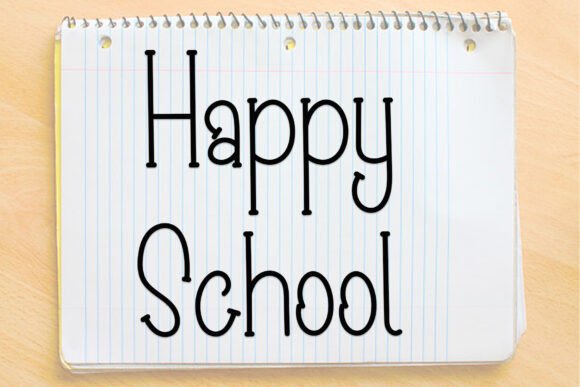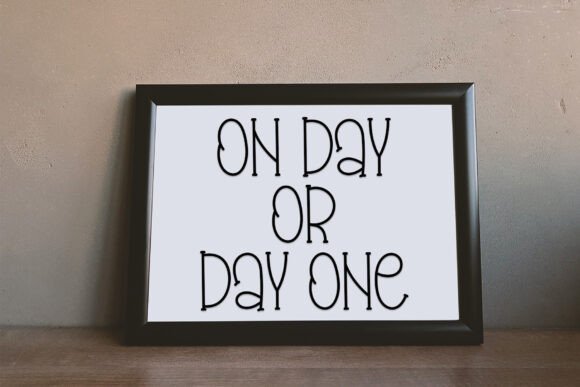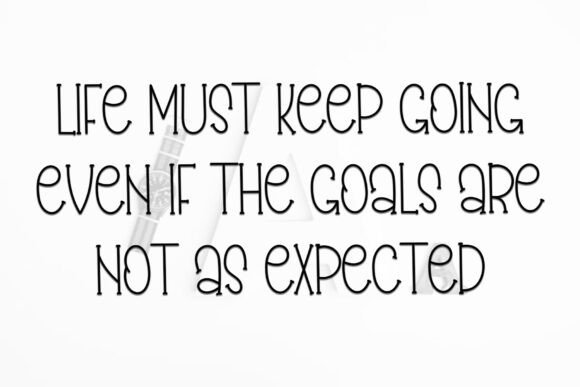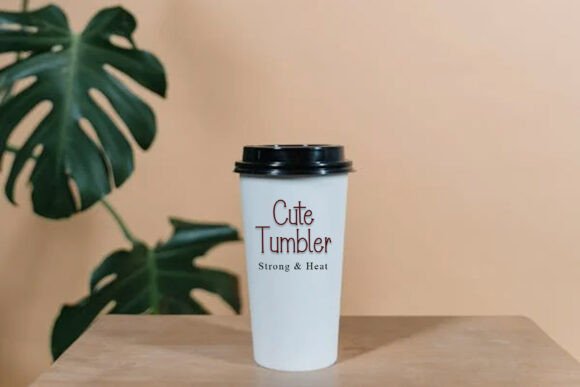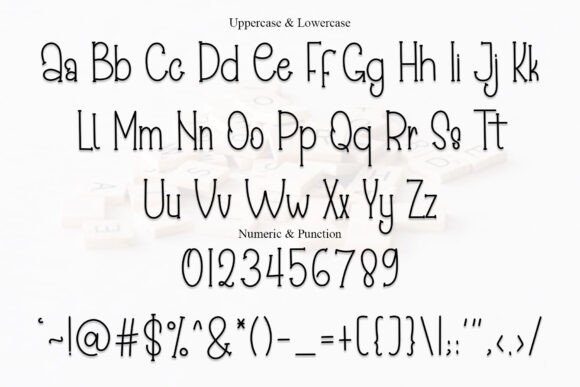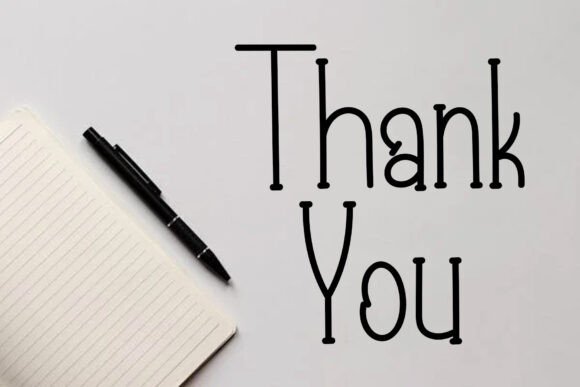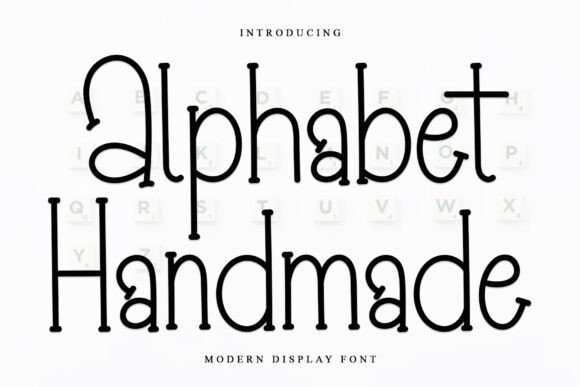
Introducing Alphabet Handmade Font: The Perfect Holiday Typeface
The holiday season is upon us, and what better way to get into the spirit than with a festive and merry typeface? Look no further than Alphabet Handmade Font, a decorative and whimsical font that’s sure to add a touch of enchantment to your designs. Whether you’re a designer, crafter, or simply someone who loves the magic of the holiday season, this font is perfect for greeting cards, gift tags, and holiday-themed projects.
Alphabet Handmade Font is a unique and eye-catching typeface that’s designed to capture the spirit of the holiday season. With its decorative elements and whimsical flair, it’s the perfect way to add a touch of nostalgia and cheer to your words. The font features a range of amazing glyphs and ligatures, making it perfect for creating beautiful and intricate designs.
Whether you’re a professional designer or a crafter who loves to make handmade gifts, Alphabet Handmade Font is the perfect choice for your holiday projects. The font is easy to use and can be accessed with ease, thanks to its PUA encoding. This means that you can easily access all of the amazing glyphs and ligatures, making it simple to create beautiful and intricate designs.
What Can I Use Alphabet Handmade Font For?
Alphabet Handmade Font is a versatile typeface that can be used for a wide range of holiday-themed projects, including:
- Greeting cards: Create beautiful and unique greeting cards for friends and family, complete with decorative elements and whimsical flair.
- Gift tags: Add a touch of magic to your gift tags with Alphabet Handmade Font, making them perfect for presents, gift baskets, and more.
- Holiday-themed projects: Use the font to create festive and merry projects, such as holiday-themed posters, flyers, and social media graphics.
- Stationery: Create beautiful and unique stationery, including letterheads, journals, and planners.
Why Choose Alphabet Handmade Font?
There are many reasons why Alphabet Handmade Font is the perfect choice for your holiday projects. Here are just a few:
- Festive and merry: The font is designed to capture the spirit of the holiday season, making it perfect for creating festive and merry designs.
- Decorative elements: The font features a range of decorative elements, including glyphs and ligatures, making it perfect for creating intricate and beautiful designs.
- Versatile: The font can be used for a wide range of holiday-themed projects, making it a great addition to any designer’s or crafter’s toolkit.
Tips for Using Alphabet Handmade Font
Here are a few tips for using Alphabet Handmade Font in your holiday projects:
- Experiment with different colors: The font looks great in a range of colors, so don’t be afraid to experiment and find the perfect hue for your design.
- Mix and match: Try mixing and matching different glyphs and ligatures to create unique and intricate designs.
- Keep it simple: Don’t be afraid to keep things simple and use the font on its own – it’s perfect for creating beautiful and elegant designs.
Alphabet Handmade Font is a festive and merry typeface that’s perfect for adding a touch of enchantment to your holiday designs. With its decorative elements and whimsical flair, it’s the perfect choice for designers, crafters, and anyone who loves the magic of the holiday season. So why not give it a try and see what amazing designs you can create?